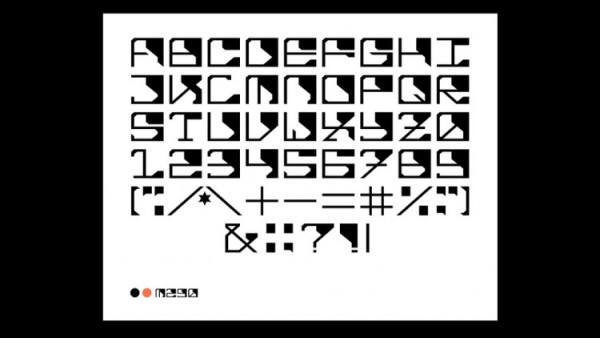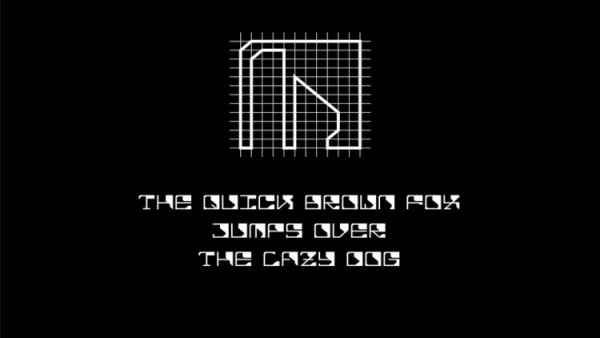
M290 Font
M290 Font is a bold geometric display typeface based on the modular grid. The font is ideal for any kind of display use from posters to typography artworks. So don’t wait, make it your font of choice today, and take your designs to the next level!